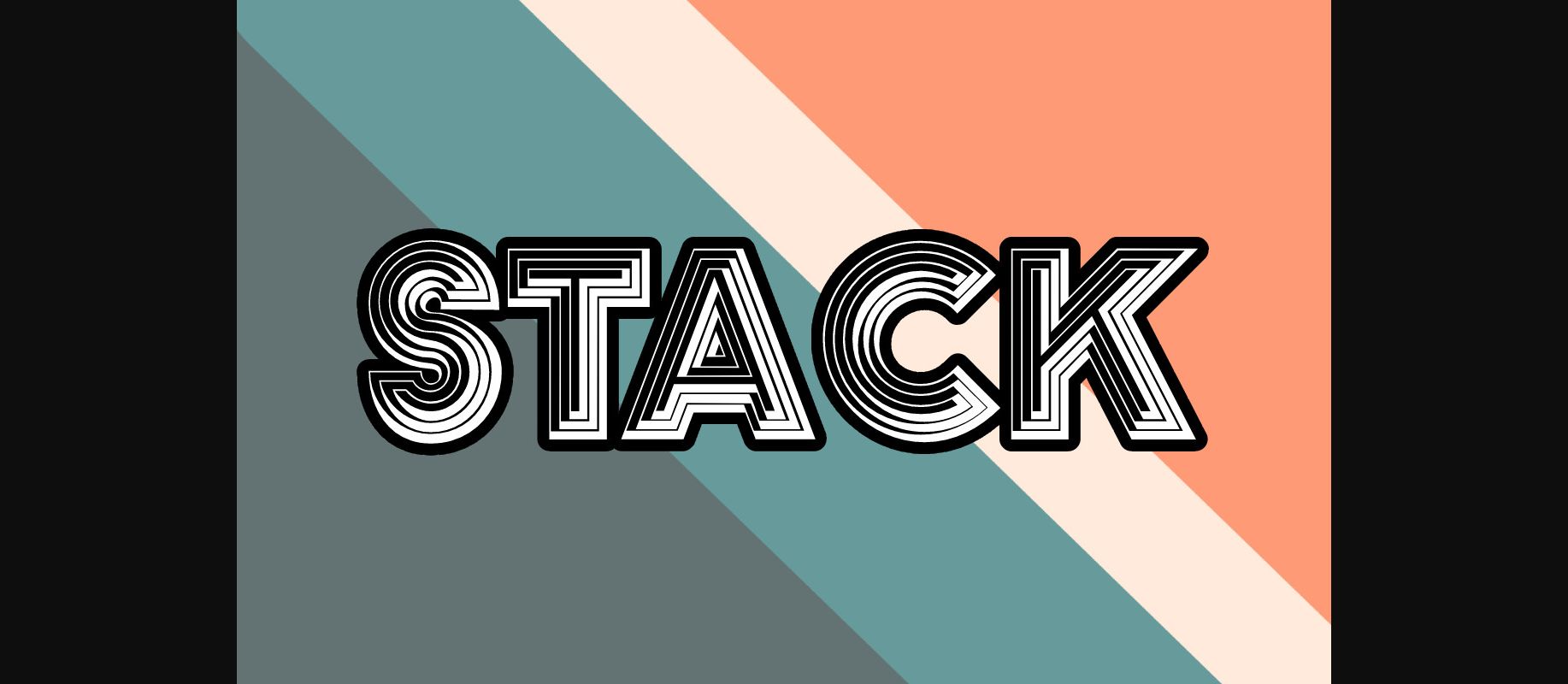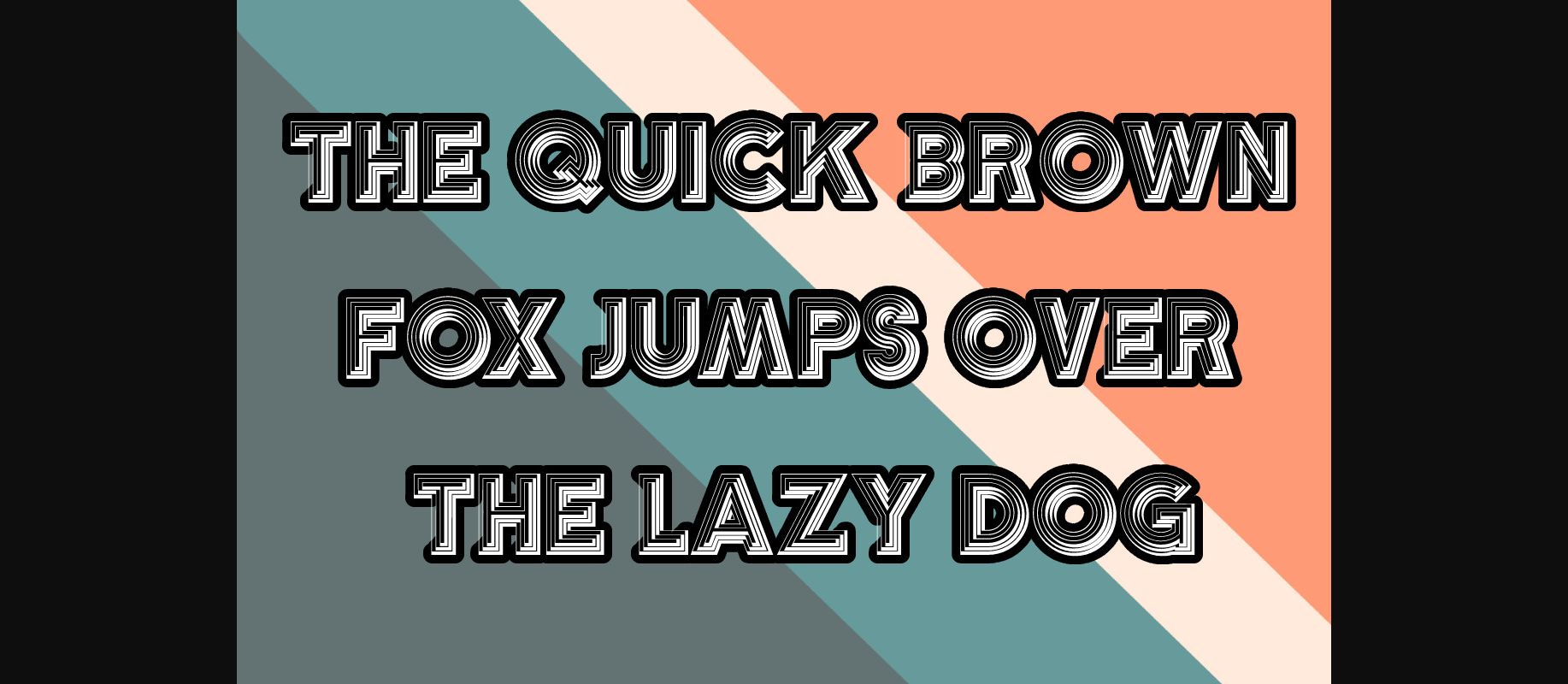
Stack Font
About Stack Font
Stack is a creative and cool decorative font. It has unique and well-balanced characters, and as a result, it matches a wide pool of designs. Add it to your most creative ideas, and notice how it makes them come alive! This font is PUA encoded which means you can access all of the amazing glyphs and ligatures with ease.